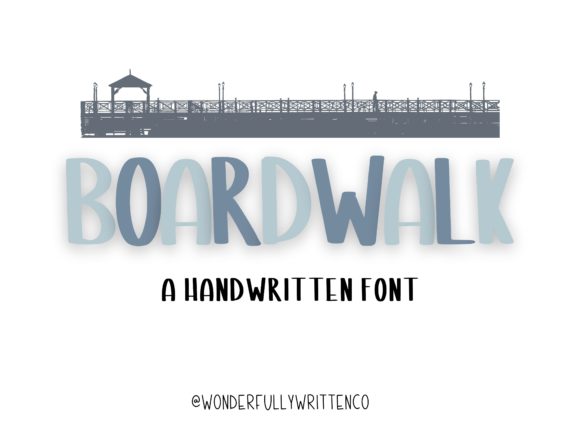
Introducing Boardwalk Font: Elevate Your Designs with a Stunning Decorative Font
In the world of graphic design, fonts play a crucial role in conveying messages, evoking emotions, and creating visual identities. When it comes to creating stunning posters, flyers, or prints, the right font can make all the difference. This is where Boardwalk Font comes into play – an awesome decorative font that can elevate your designs to new heights. In this article, we’ll explore the features, benefits, and endless possibilities of using Boardwalk Font in your designs.
What is Boardwalk Font?
Boardwalk Font is a decorative font designed to add a touch of elegance and sophistication to your designs. Its unique and stylish lettering makes it perfect for creating eye-catching posters, flyers, and prints. Whether you’re a graphic designer, a small business owner, or a marketing enthusiast, Boardwalk Font is an excellent addition to your font collection.
Key Features of Boardwalk Font
- Unique and Stylish Lettering: Boardwalk Font boasts a distinctive and stylish lettering style that sets it apart from other fonts.
- High-Quality Design: The font is designed with high-quality craftsmanship, ensuring that it looks stunning in any design.
- Easy to Read: Despite its decorative nature, Boardwalk Font is easy to read, making it perfect for use in posters, flyers, and prints.
- Versatile: Boardwalk Font can be used in a wide range of designs, from elegant and sophisticated to playful and creative.
Benefits of Using Boardwalk Font
Using Boardwalk Font in your designs offers numerous benefits. Here are a few:
- Enhanced Visual Appeal: Boardwalk Font adds a touch of elegance and sophistication to your designs, making them more visually appealing.
- Improved Brand Identity: By using a unique and stylish font like Boardwalk Font, you can create a distinctive brand identity that sets you apart from others.
- Increased Engagement: The eye-catching nature of Boardwalk Font can help grab the attention of your audience, increasing engagement and interaction with your designs.
Endless Possibilities: Ideas for Using Boardwalk Font
Boardwalk Font is an incredibly versatile font that can be used in a wide range of designs. Here are some ideas to get you started:
- Posters and Flyers: Use Boardwalk Font to create stunning posters and flyers that grab attention and convey your message.
- Print Materials: Add a touch of elegance to your print materials, such as brochures, business cards, and letterheads.
- Digital Designs: Use Boardwalk Font in your digital designs, such as social media graphics, email headers, and website titles.
- Logos and Branding: Create a distinctive brand identity by using Boardwalk Font in your logos and branding materials.
Tips and Tricks for Using Boardwalk Font
Here are some tips and tricks to help you get the most out of Boardwalk Font:
- Experiment with Colors: Try out different colors and color combinations to find the perfect match for your design.
- Play with Sizes: Experiment with different font sizes to create visual hierarchy and emphasis in your design.
- Combine with Other Fonts: Combine Boardwalk Font with other fonts to create a unique and visually appealing font combination.
In conclusion, Boardwalk Font is an awesome decorative font that can elevate your designs to new heights. With its unique and stylish lettering, high-quality design, and versatility, it’s perfect for creating stunning posters, flyers, and prints. By following the tips and tricks outlined in this article, you can get the most out of Boardwalk Font and create visually appealing designs that engage and inspire your audience.